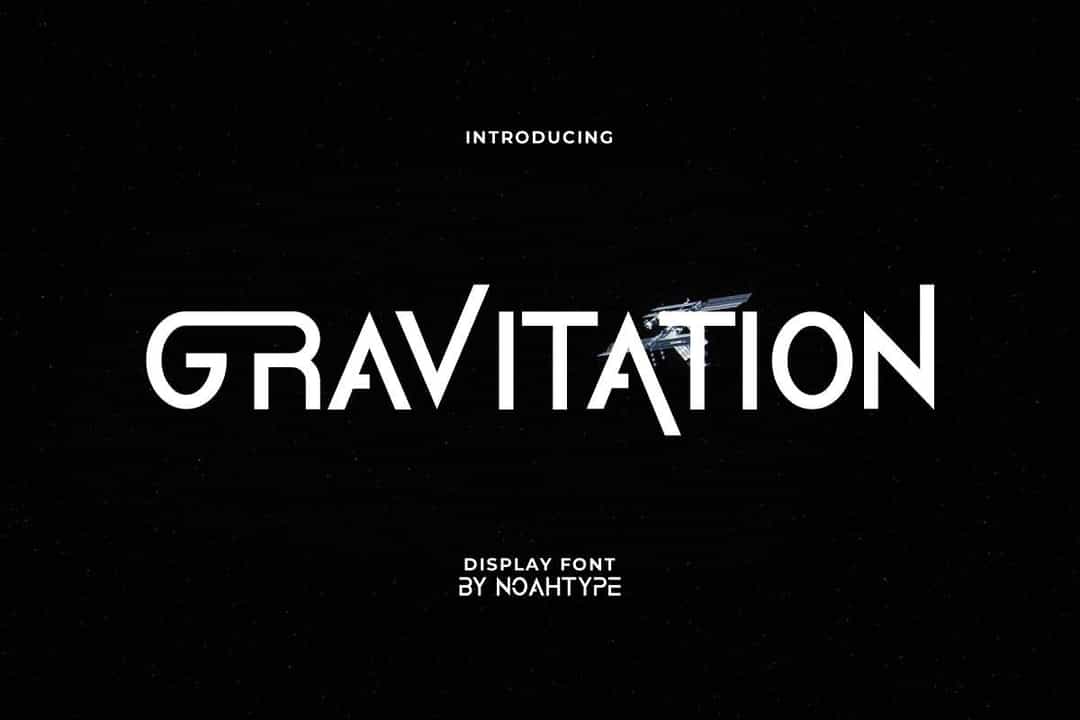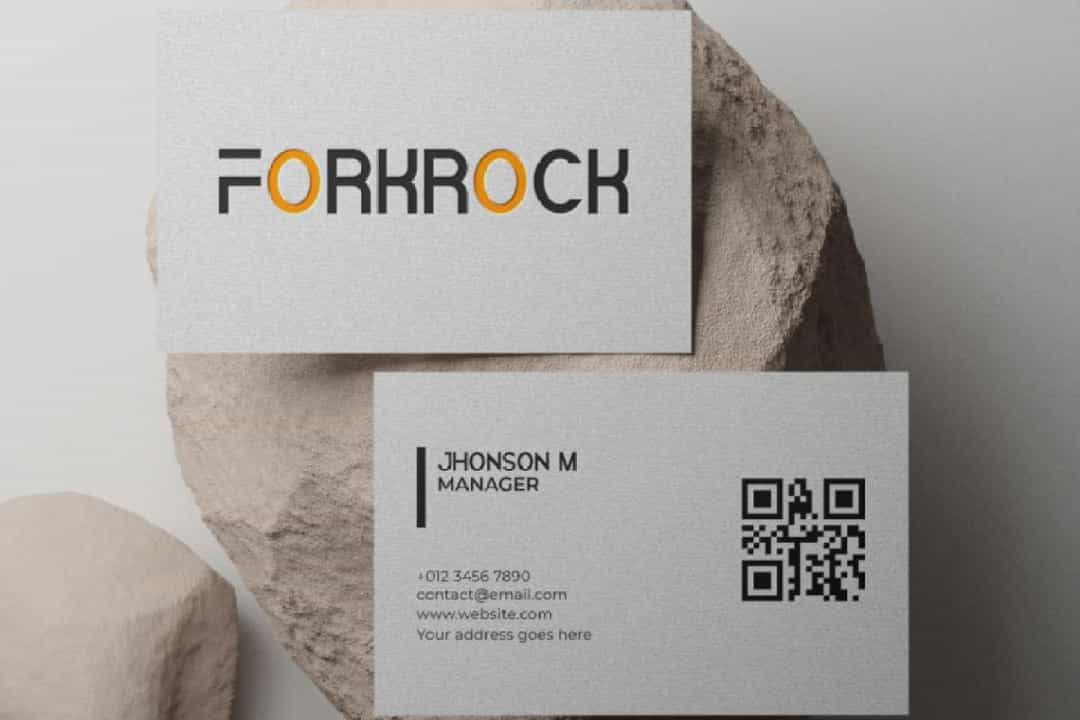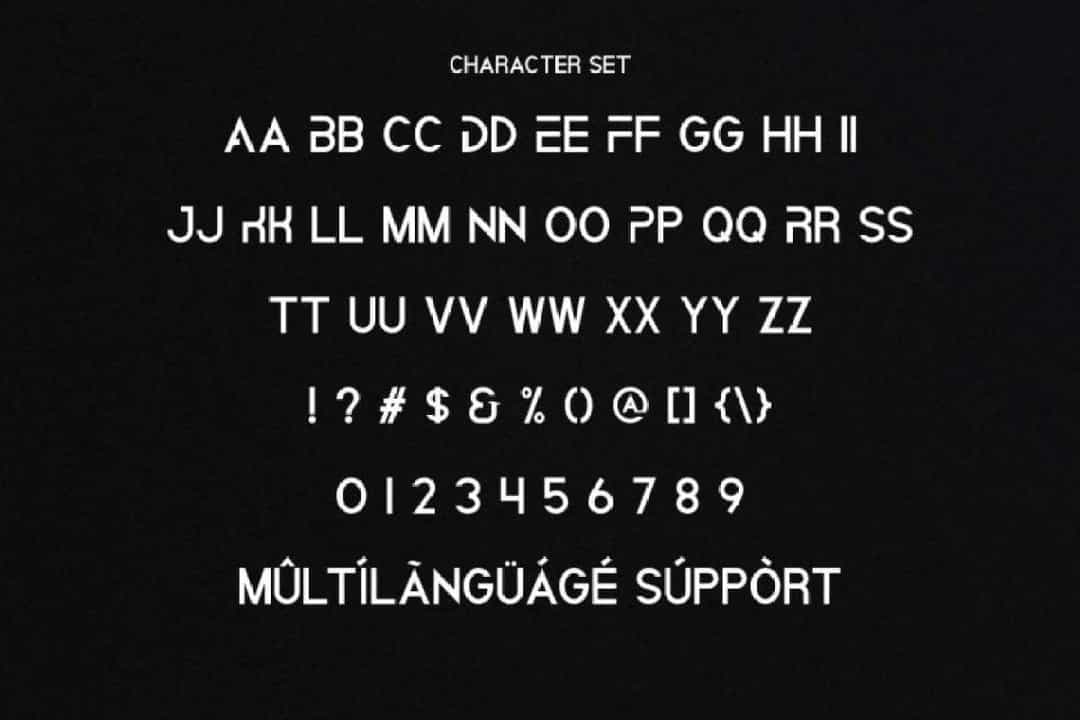
Gravitation Font is a modern sans serif display font with distinctive stylized characters that gives it its unique appearance. Perfect for games, technology events and spaceships; Gravitation also includes Uppercase Standard Characters as well as Numerics and Punctuation Punction.